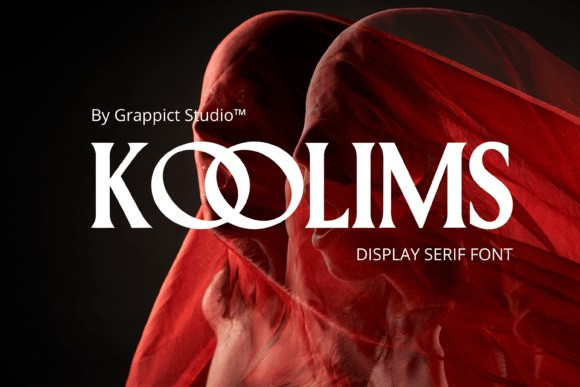
Koolims Font
Koolims Font is a modern display serif font that seamlessly blends classic elegance with a bold, experimental twist. Specially crafted for high-impact visuals, Koolims is the perfect choice for magazine headlines, luxury branding, editorial designs, movie posters, high-end packaging, and any creative project that demands a dramatic, mysterious, and sophisticated impression.